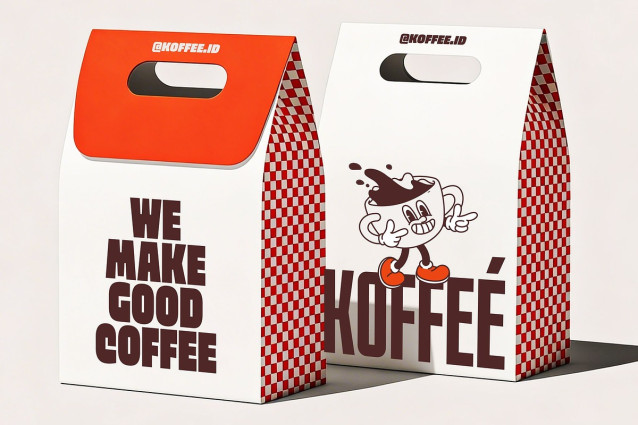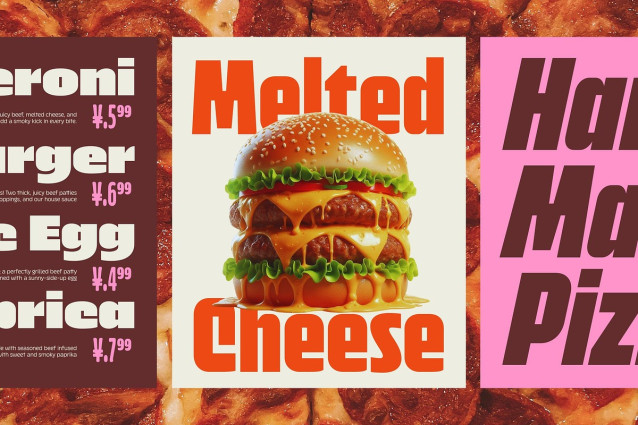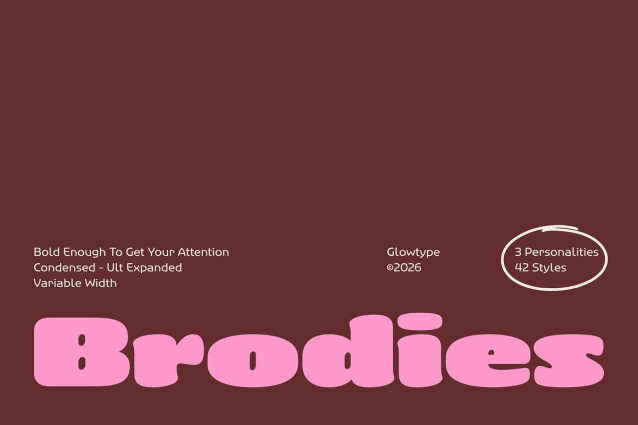
Brodies Display Font Family
Brodies Display Font Family is a bold, high-impact display typeface designed to command attention through confident shapes and expressive versatility. Built as a variable font system, it features two axes—width and slant—allowing seamless transitions from condensed to ultra expanded proportions, while introducing dynamic movement through adjustable angles.